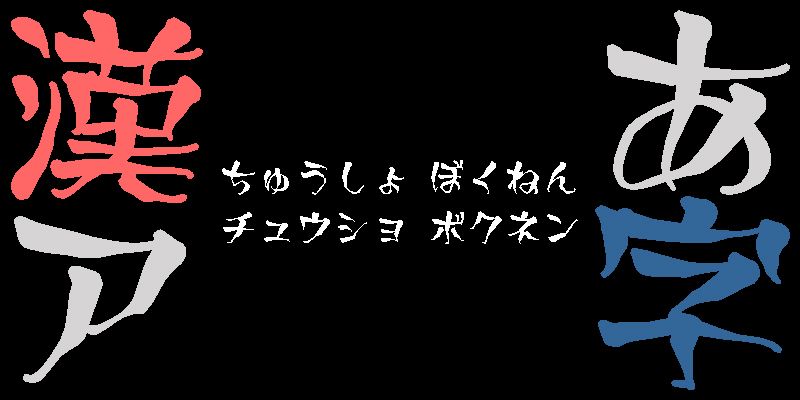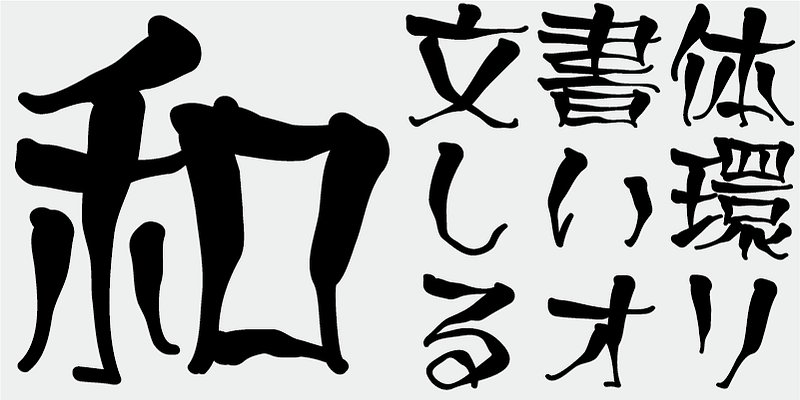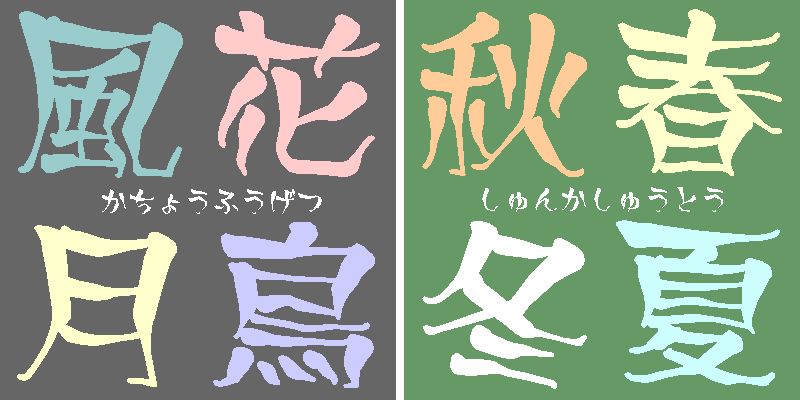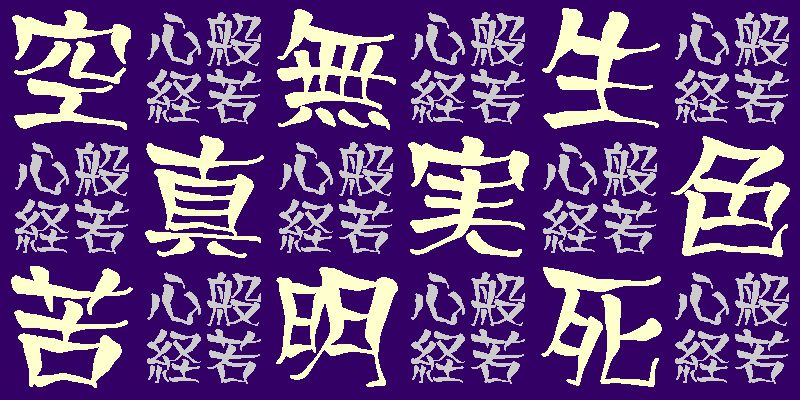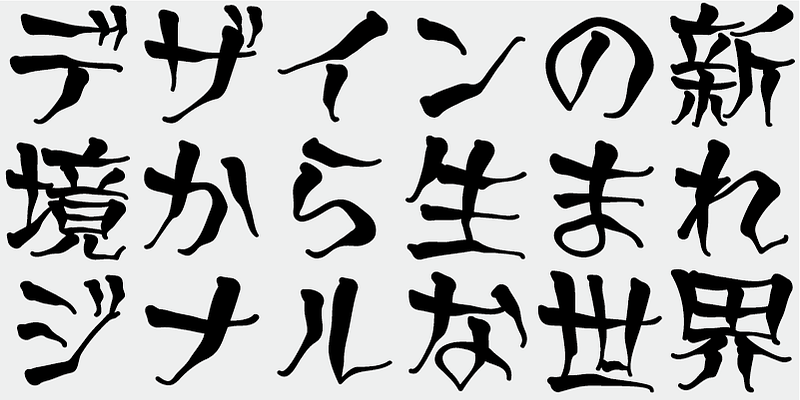
Tyuusyobokunen was designed using a tablet PC. Making it “disagreeable yet cute” was the main concept of this design.
Normally, horizontal strokes of a character tend to be perfectly level or slightly rising to the right, however, in this typeface, horizontal strokes are falling to the right. Its strokes have irregularities such as uneven widths and unbalanced shapes. This serves to make the typeface “disagreeable”.
The typeface design includes visually distinct points and the visual center of gravity is set higher than usual, and like the so-called “Maru-moji” style of round hand-written characters, its average bounding box size is set larger. This gives the typeface a kind of cuteness.
This typeface is suitable for typesetting traditional Chinese idioms and proverbs, each of which is typically composed of four kanji characters.